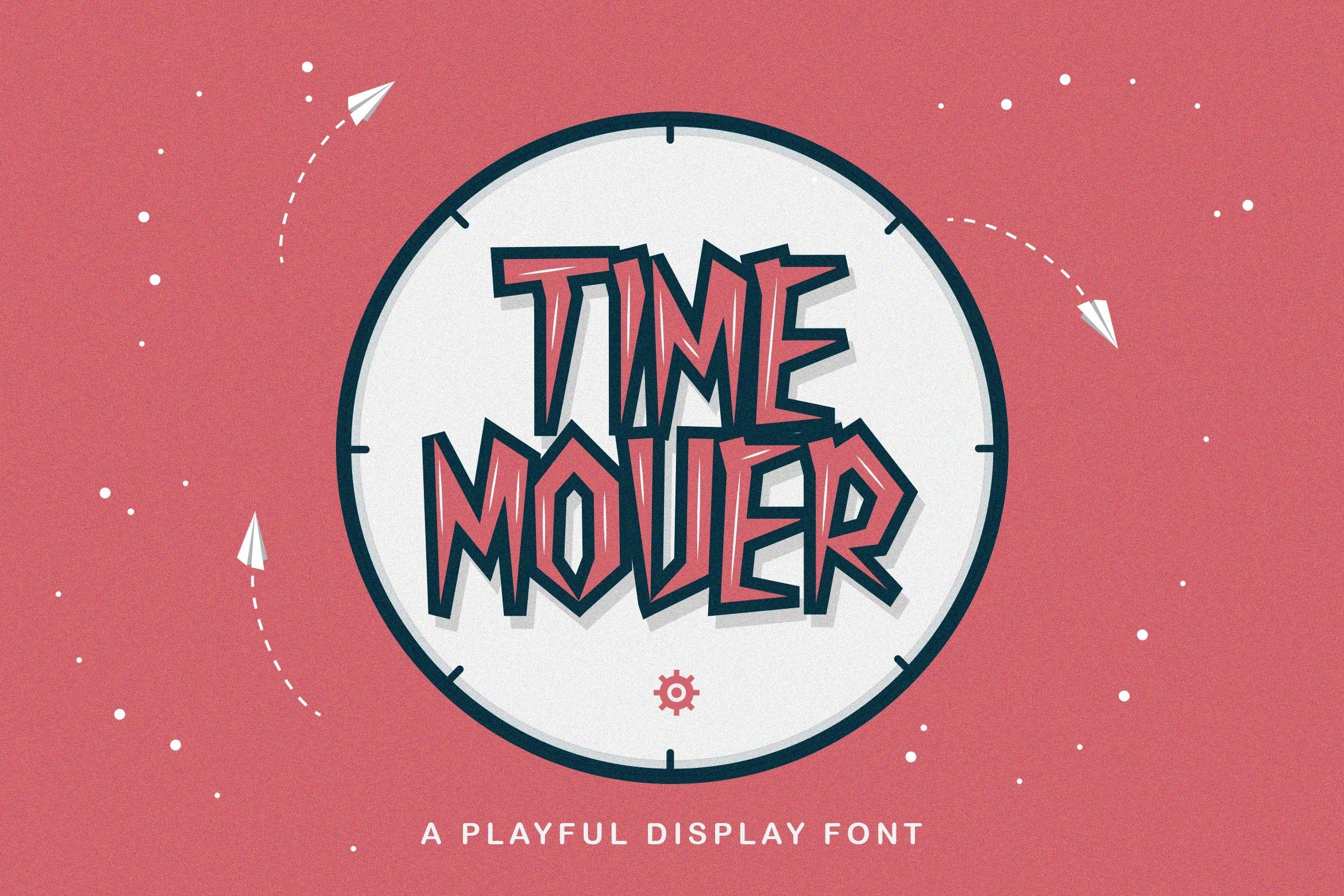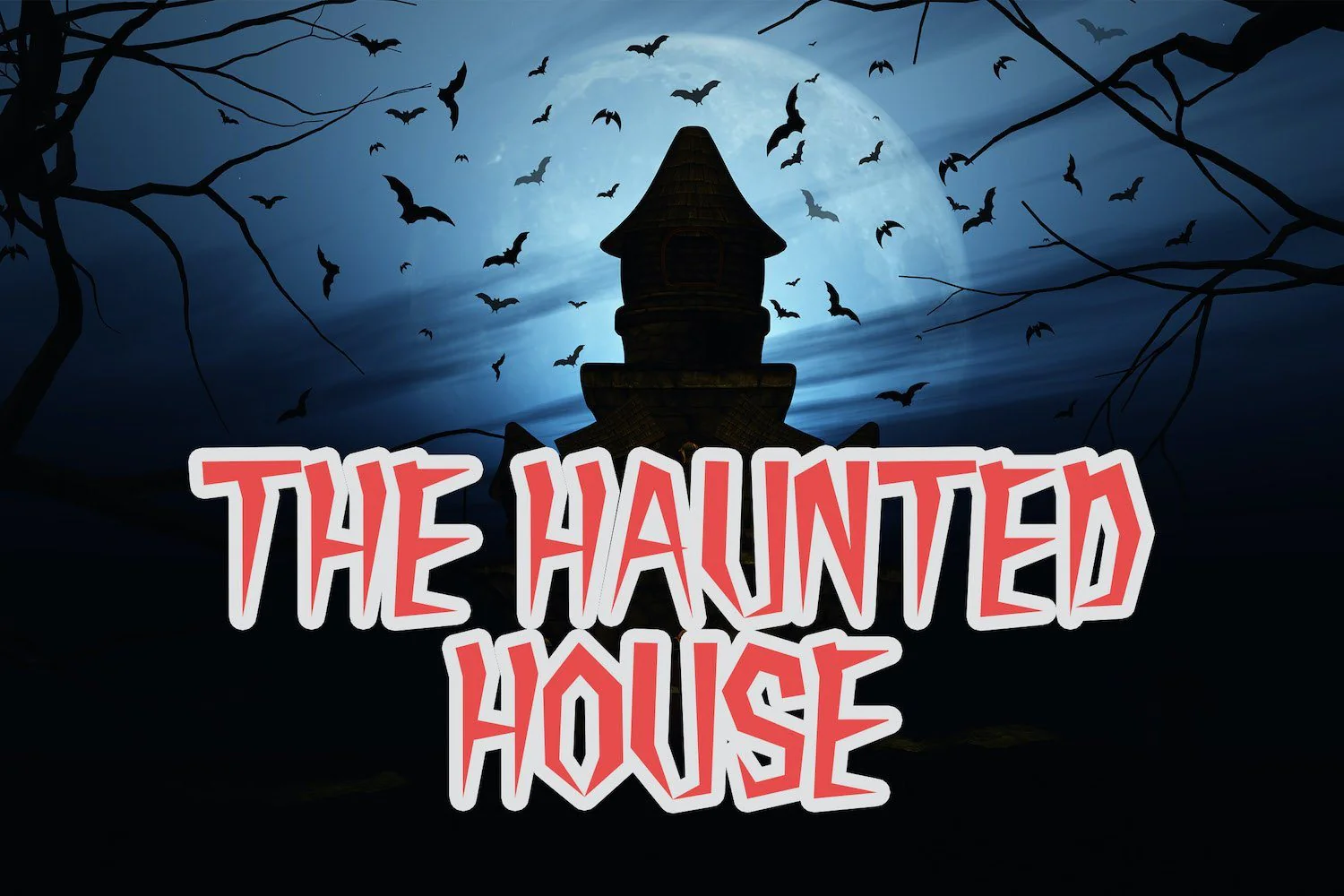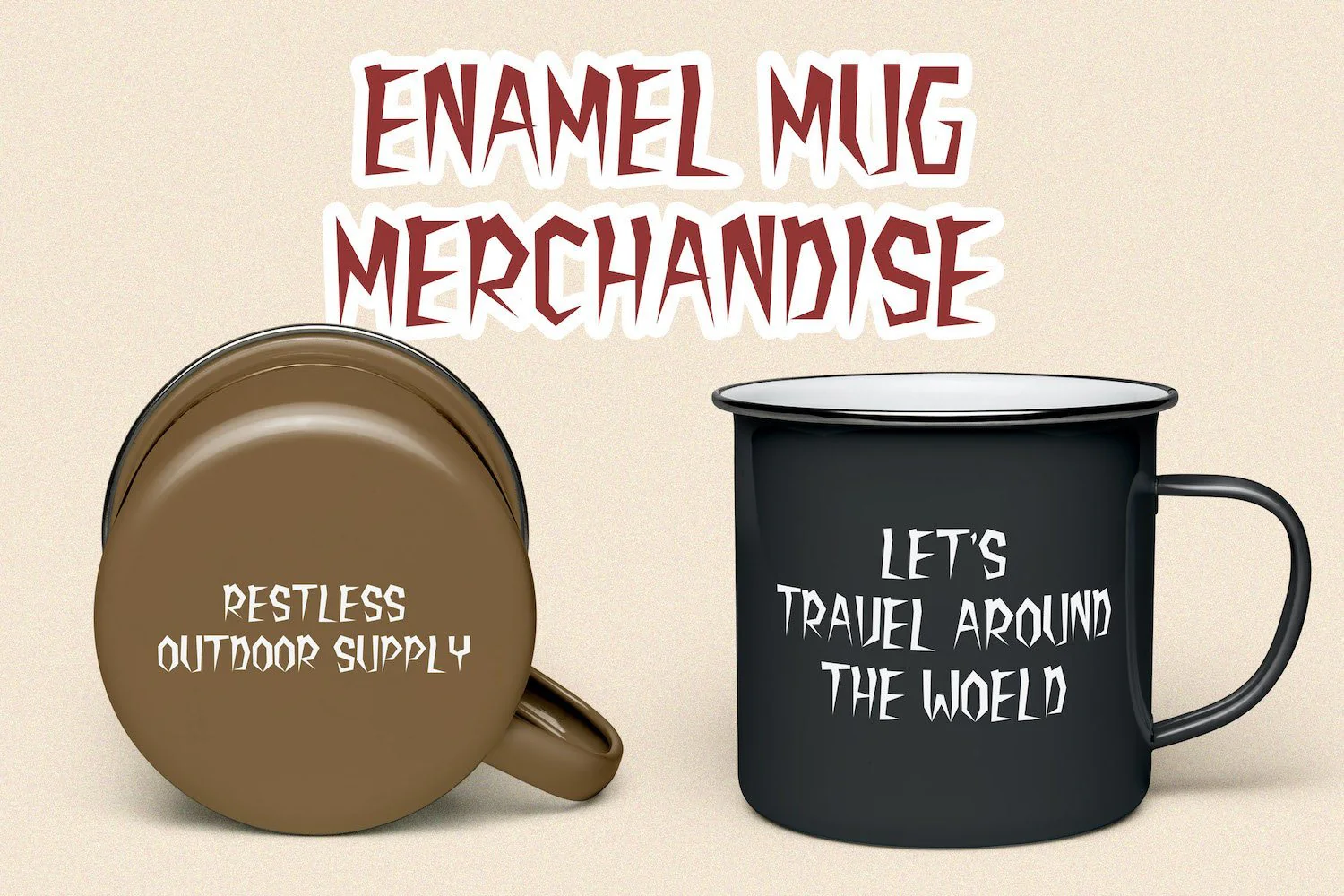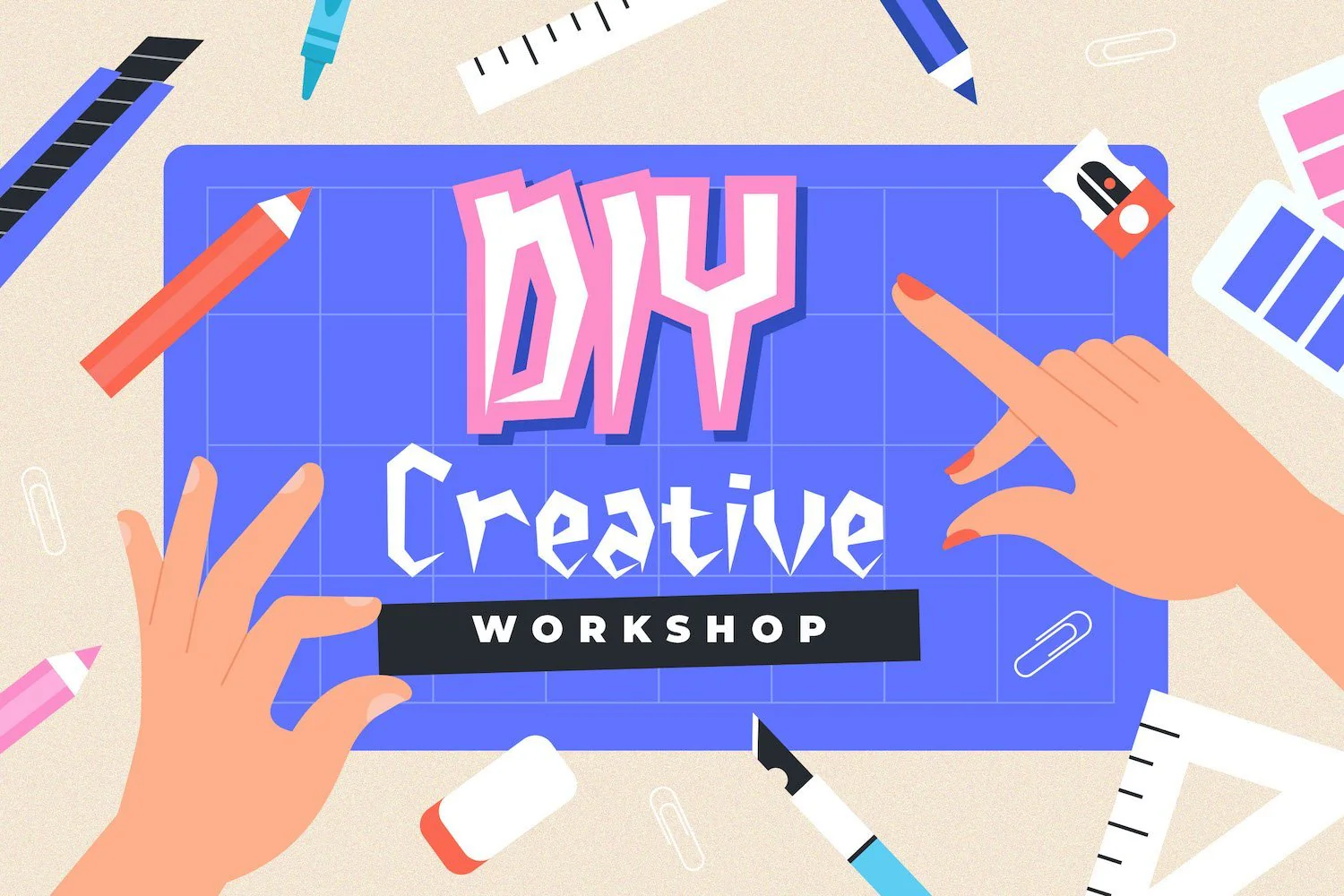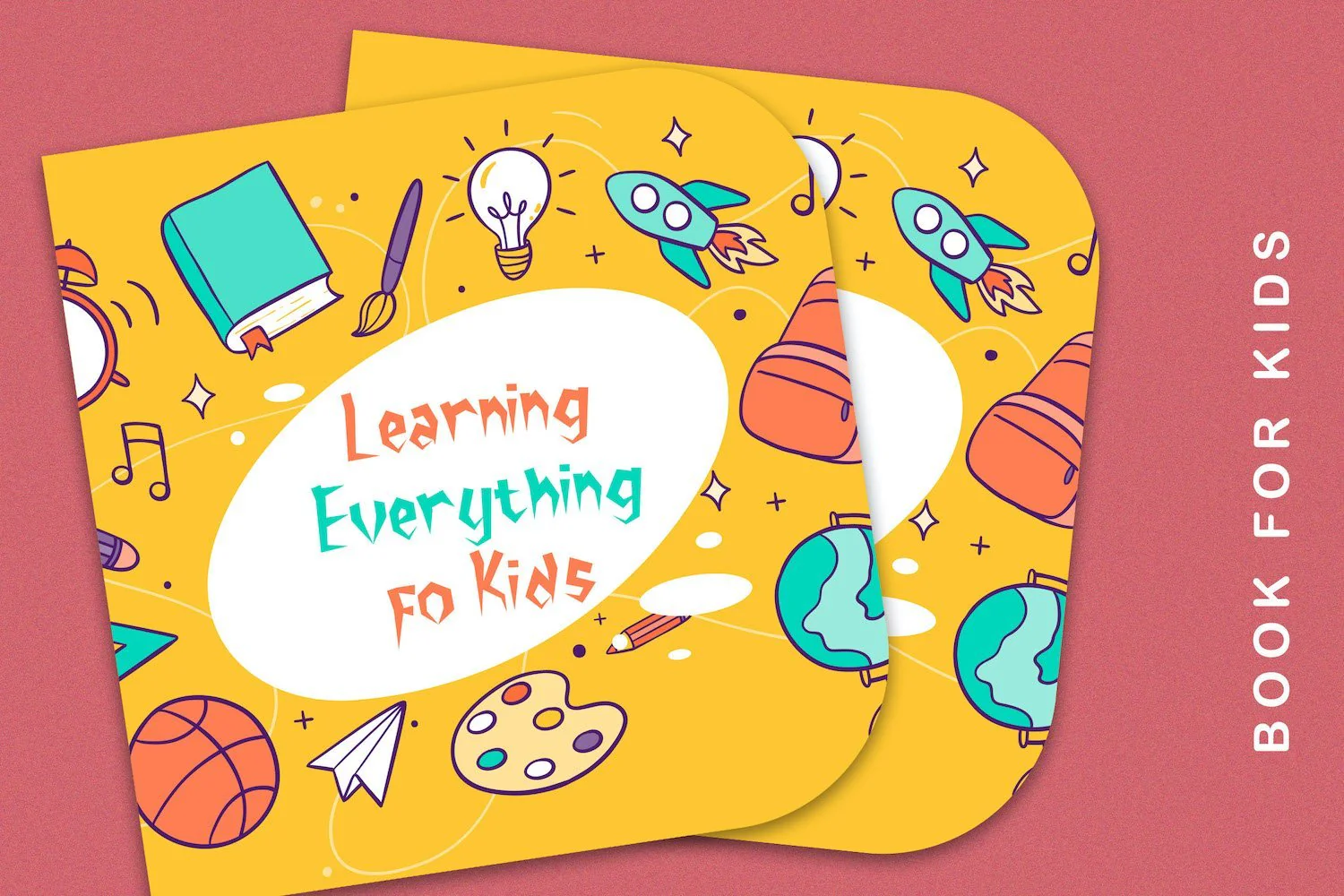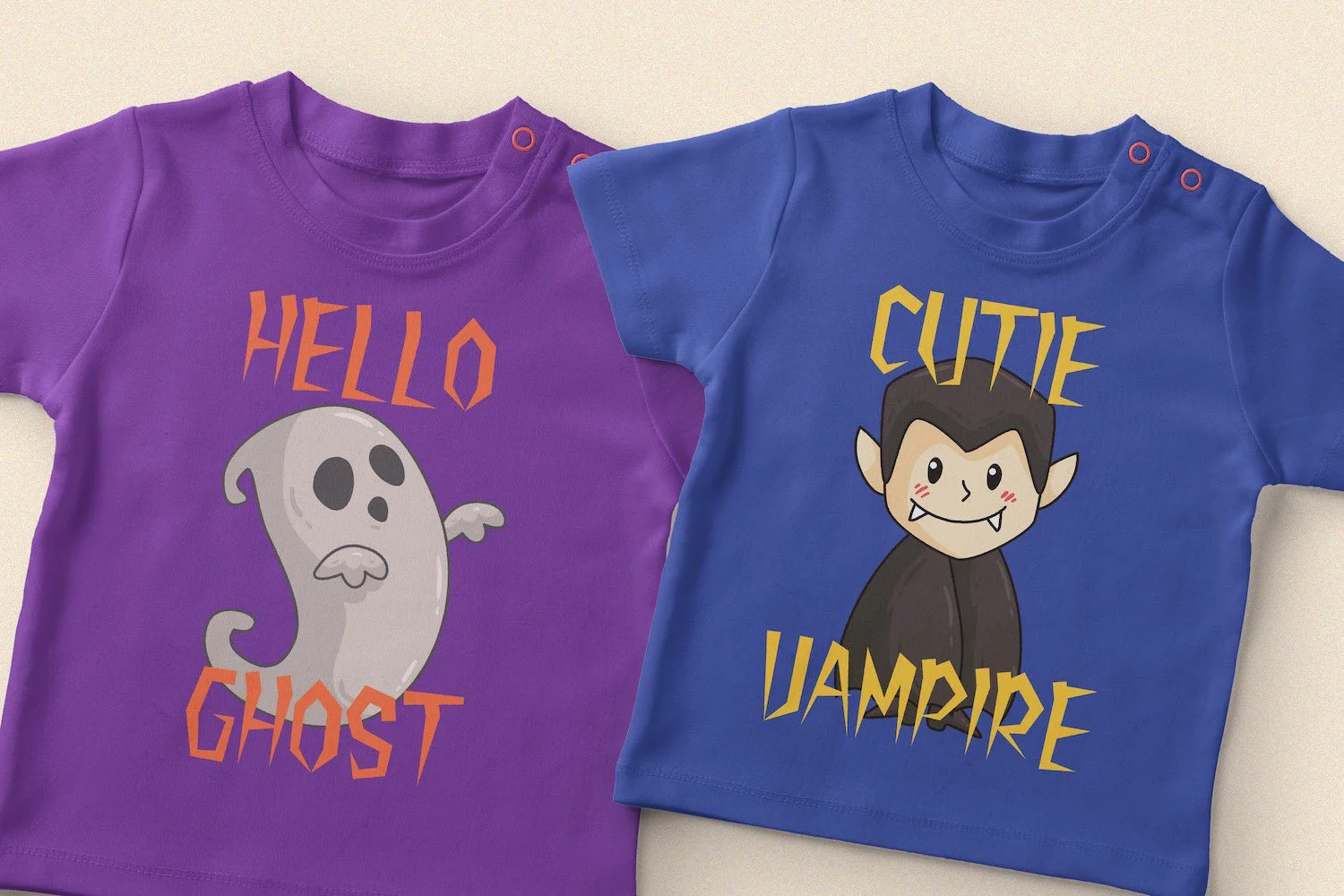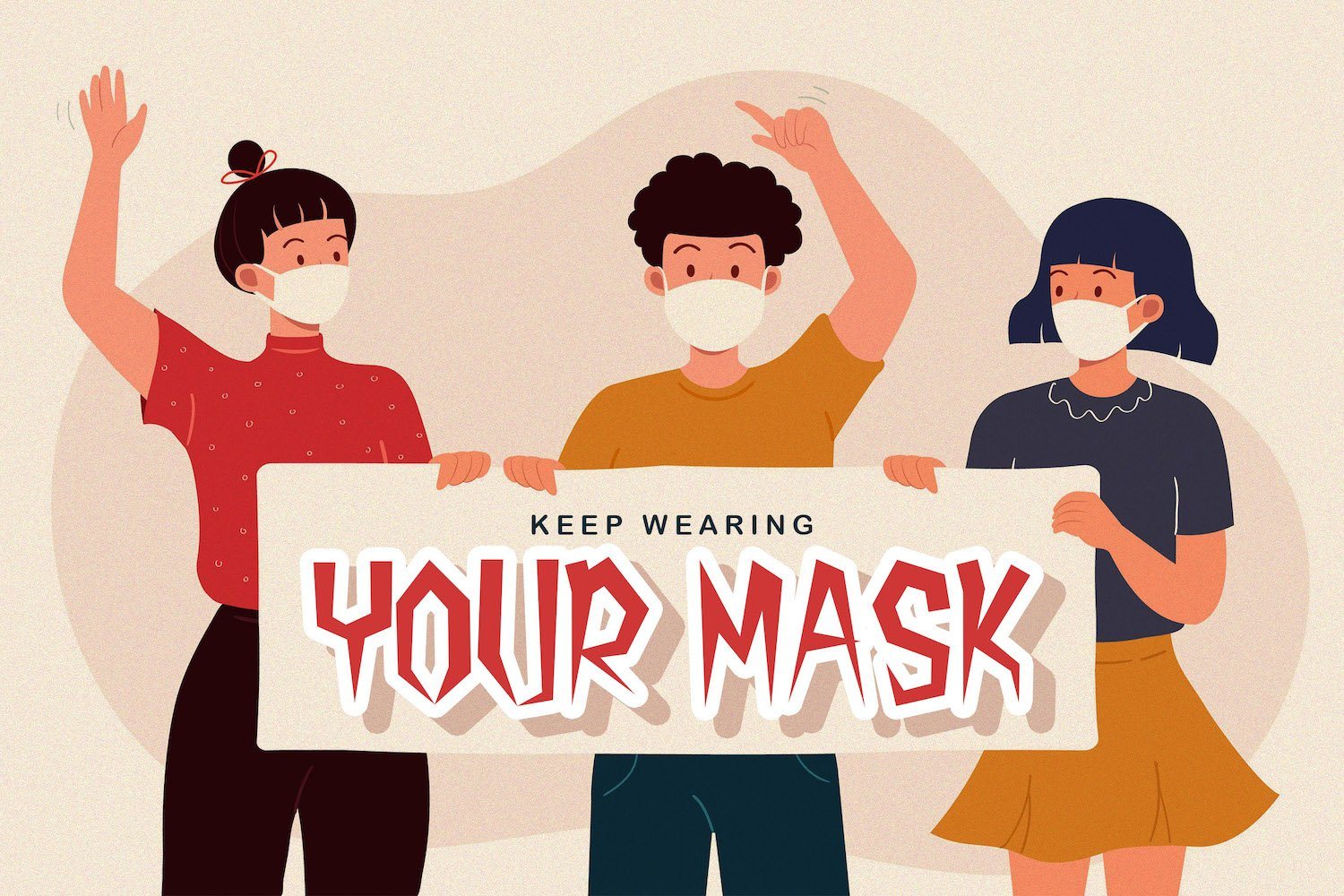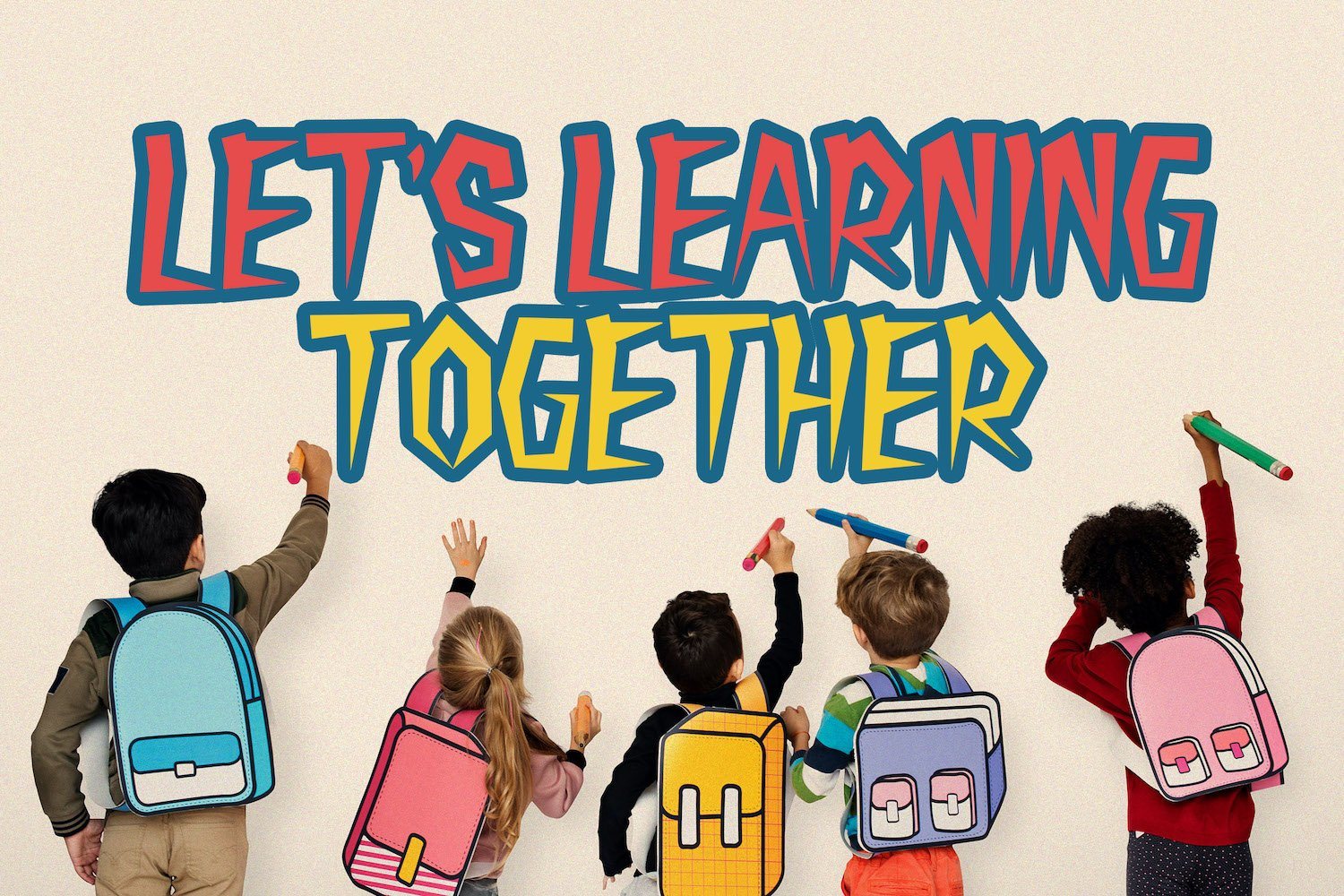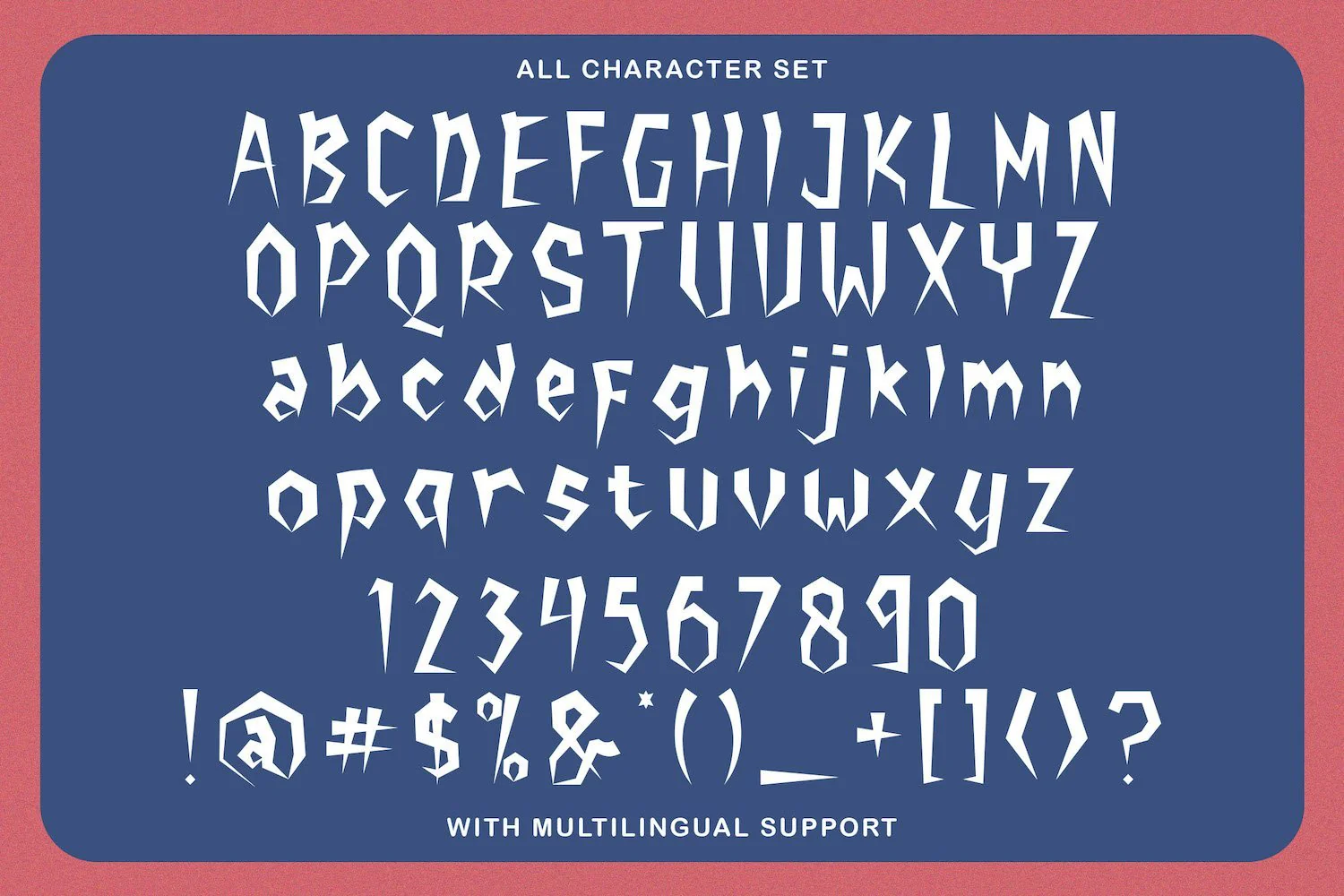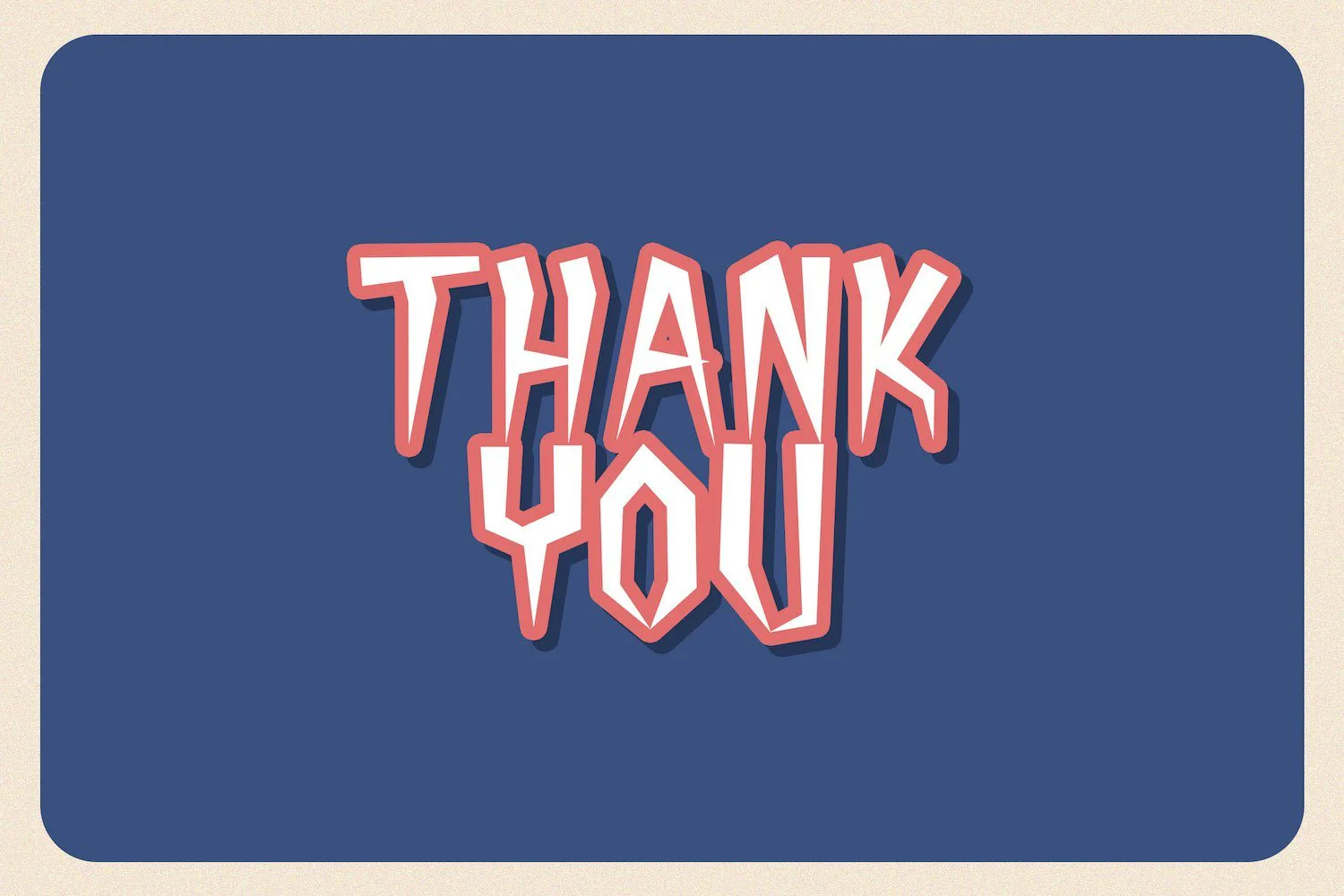
Time Mover - Playful Display Font
Introducing Time Mover - Playful Display Font
Time Mover playful and fun display font. It features a spooky feel and playful that makes it perfect for any projects. Use it for movies, flyers, posters, crafting and much more!